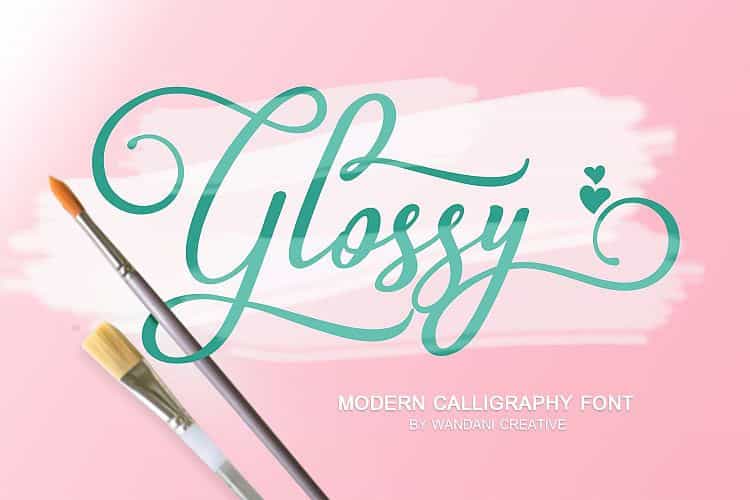
Introducing Glossy Calligraphy Font. I have been really happy with the way I created Glossy Script and hope that it will be a source of magic for your projects! The font Glossy Script is a gorgeous and elegant script font that will definitely steal your heart by its charming design.